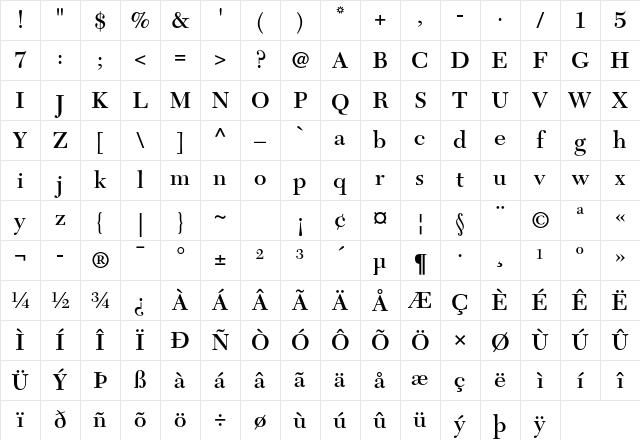
New Caledonia LT Std Semibold
Style: Semibold
Designer: William A. Dwiggins
Design Context for New Caledonia LT Std
New Caledonia LT Std is a composed and adaptable typeface that performs quietly and consistently across a wide range of design contexts. Its bold stroke weight gives it real presence on the page.